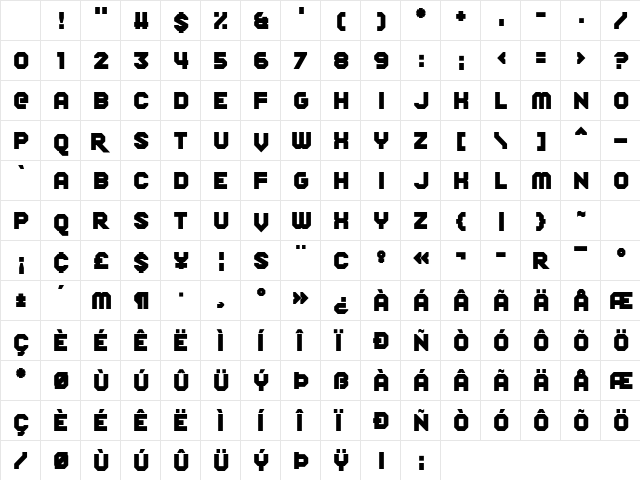
Complete Route 26 Straight Regular glyph index. Displaying only characters natively supported by Route 26 Straight Regular font.
Route 26 Straight is a composed and adaptable typeface that performs quietly and consistently across a wide range of design contexts.